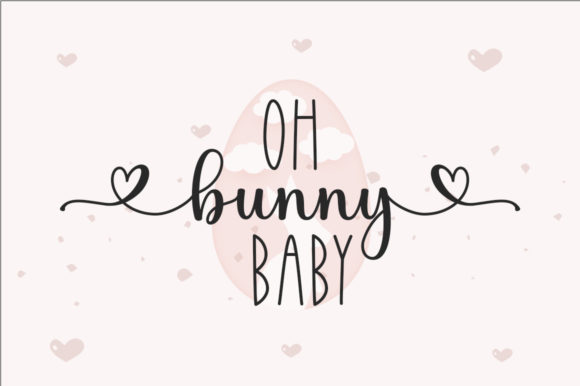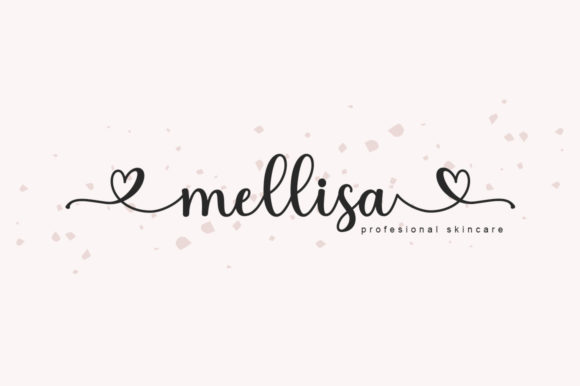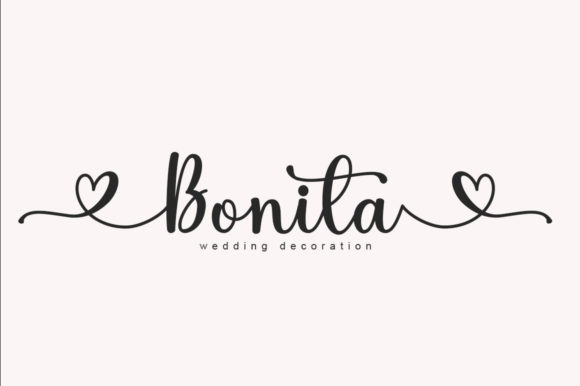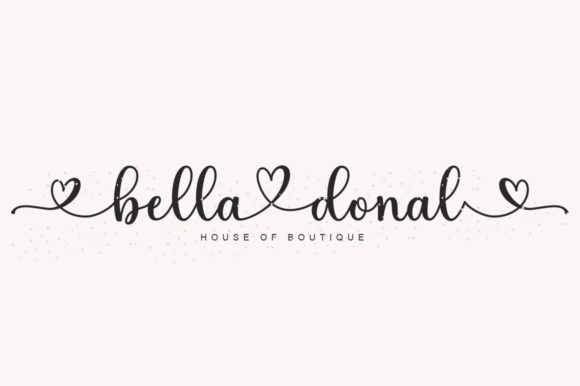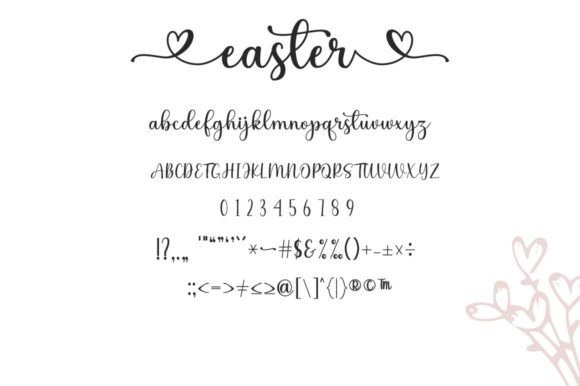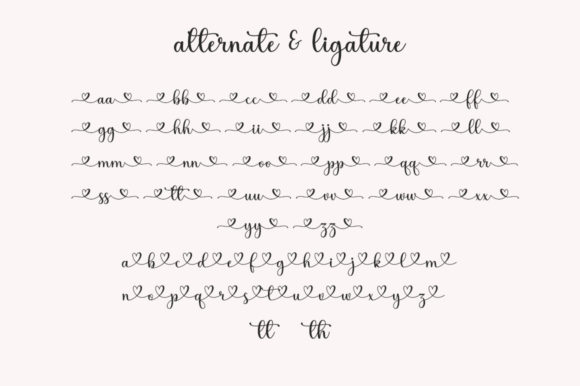
Easter Time Font: Elevate Your Designs with Delicate Elegance
As the Easter season approaches, designers and crafters are on the lookout for fonts that can add a touch of elegance and whimsy to their creations. If you’re searching for a font that embodies the spirit of Easter, look no further than Easter Time Font. This beautiful, thin lettered, and delicate script font is perfect for a variety of design projects, from Easter-themed crafts to everyday creative endeavors.
What Makes Easter Time Font Special?
Easter Time Font is a PUA (Private Use Area) encoded font, which means that you can easily access all of the amazing glyphs and ligatures without any hassle. This feature makes it incredibly user-friendly, allowing you to focus on your design rather than getting bogged down in complicated font mechanics. With Easter Time Font, you can add a touch of sophistication and charm to your designs with ease.
Key Features of Easter Time Font
- Thin Lettered and Delicate: Easter Time Font boasts a slender, elegant design that adds a touch of refinement to any project.
- PUA Encoded: Enjoy effortless access to a wide range of glyphs and ligatures, making it easy to create stunning designs.
- Script Font: The flowing, connected letters of Easter Time Font give it a beautiful, handwritten feel that’s perfect for a variety of design applications.
- Easter-themed: While versatile enough for everyday use, Easter Time Font is especially suited for Easter-themed projects, adding a seasonal touch to your creations.
Using Easter Time Font in Your Designs
Whether you’re a professional designer or a hobbyist crafter, Easter Time Font can elevate your projects in numerous ways. Here are a few ideas to get you started:
- Easter Cards and Invitations: Add a personal touch to your Easter greetings with beautifully designed cards and invitations.
- DIY Crafts: From Easter egg decorations to handmade gifts, Easter Time Font can add a delicate, festive touch to your crafts.
- Digital Designs: Use Easter Time Font in your digital creations, such as blog posts, social media graphics, and more, to give them a seasonal flair.
- Stationery and Paper Crafts: Elevate your stationery, journals, and paper crafts with the elegant, flowing lines of Easter Time Font.
Tips for Getting the Most Out of Easter Time Font
To truly make Easter Time Font shine in your designs, consider the following tips:
- Experiment with Colors: Pair Easter Time Font with pastel colors or bright, Easter-themed hues to enhance its seasonal appeal.
- Mix and Match: Combine Easter Time Font with other fonts for interesting contrasts and unique design effects.
- Play with Ligatures: Take advantage of the font’s ligatures and glyphs to add variety and interest to your text.
- Keep it Simple: Sometimes, less is more. Let Easter Time Font be the focal point of your design to maximize its impact.
Easter Time Font offers a unique combination of elegance, versatility, and ease of use, making it an excellent choice for designers and crafters looking to add a touch of Easter charm to their projects. With its delicate script and PUA encoding, this font is sure to become a go-to in your design arsenal. So why wait? Download Easter Time Font today and let your creativity bloom this Easter season!